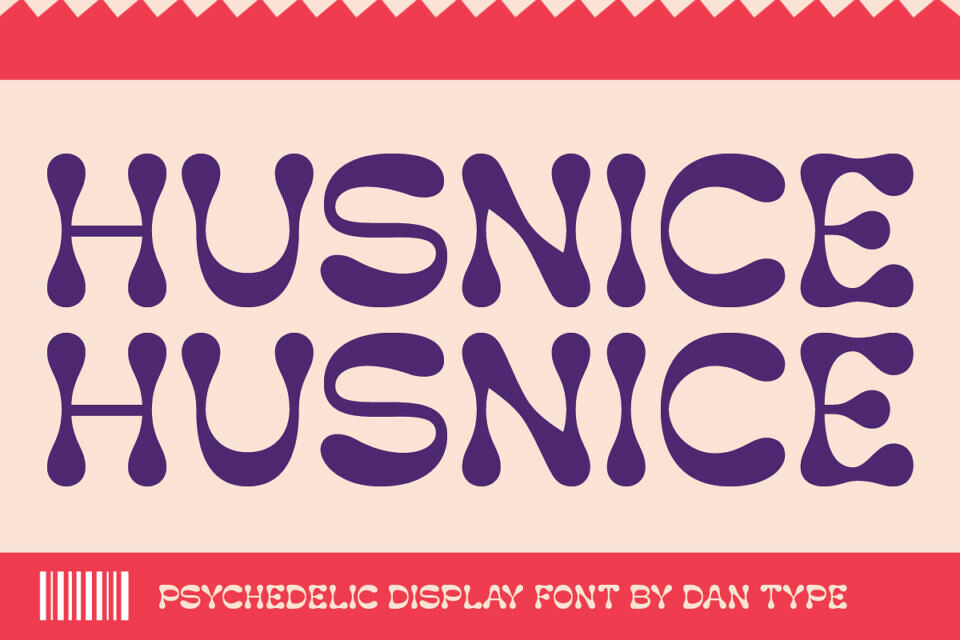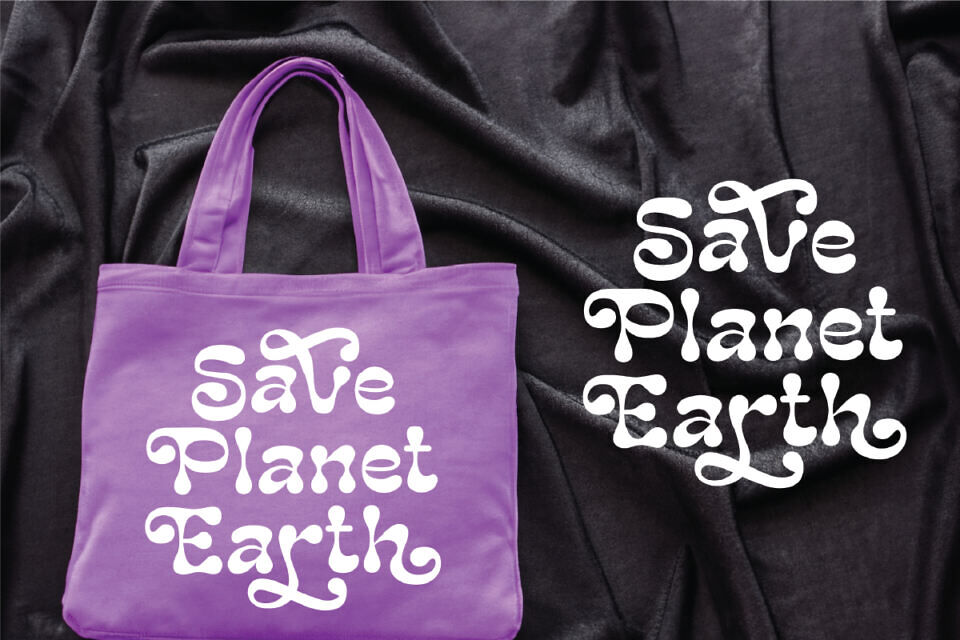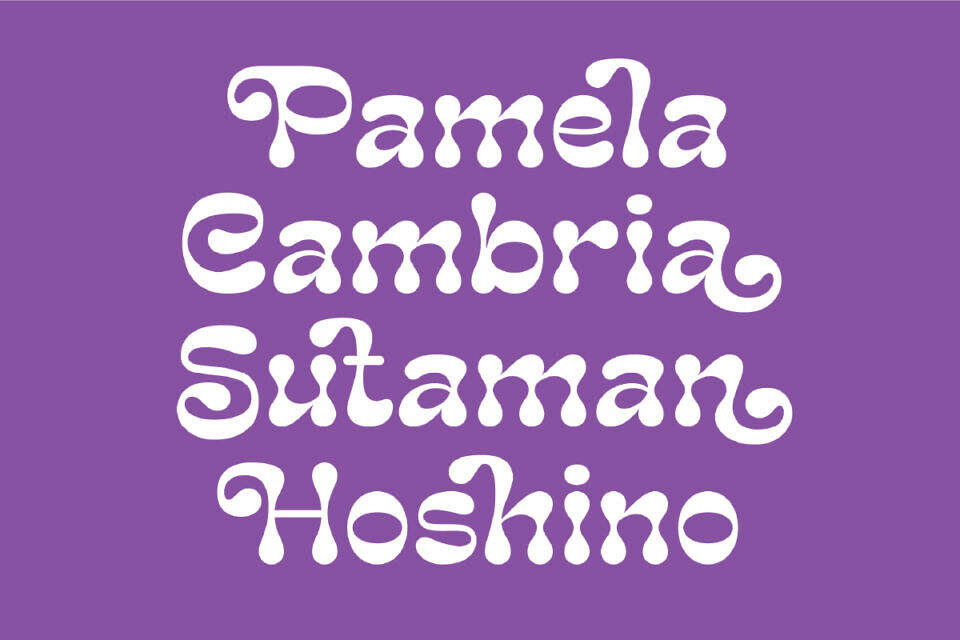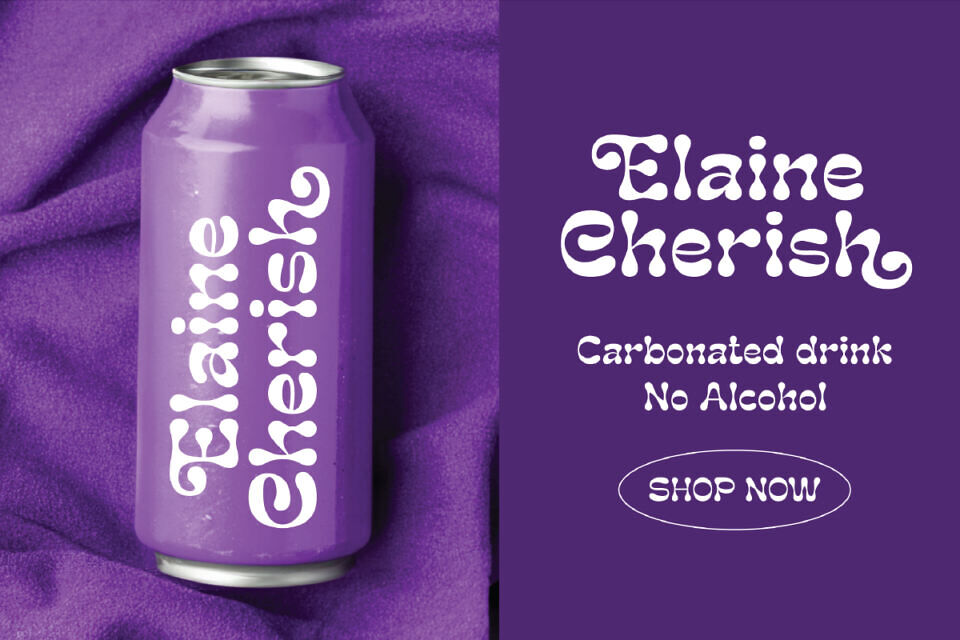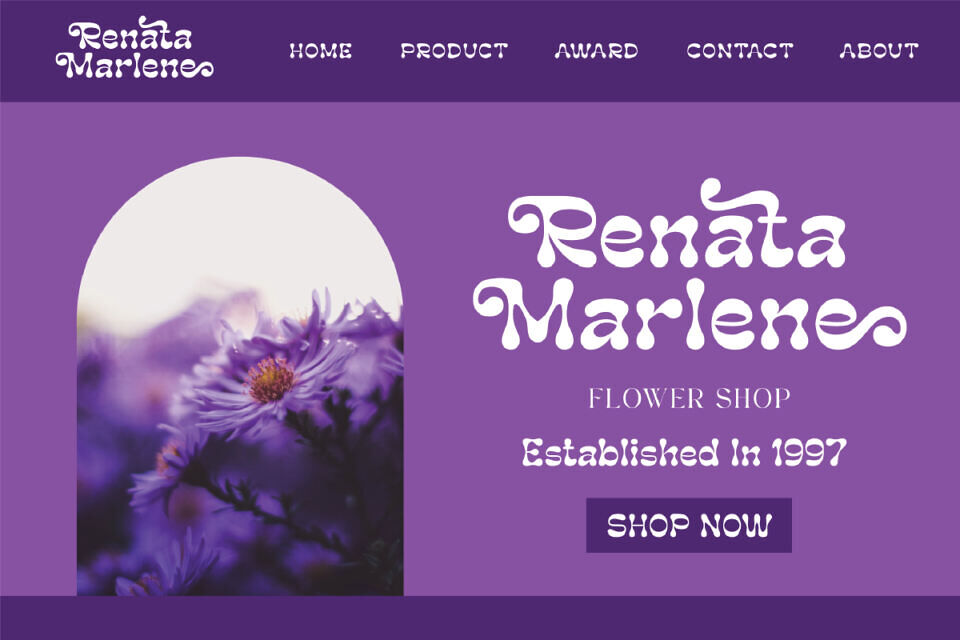
Husnice is a display font crafted by Dan Type. This font would be perfect for photography, watermarks, social media posts, advertisements, logos & branding, invitations, product design, labels, stationery, product packaging, special events, and other projects.